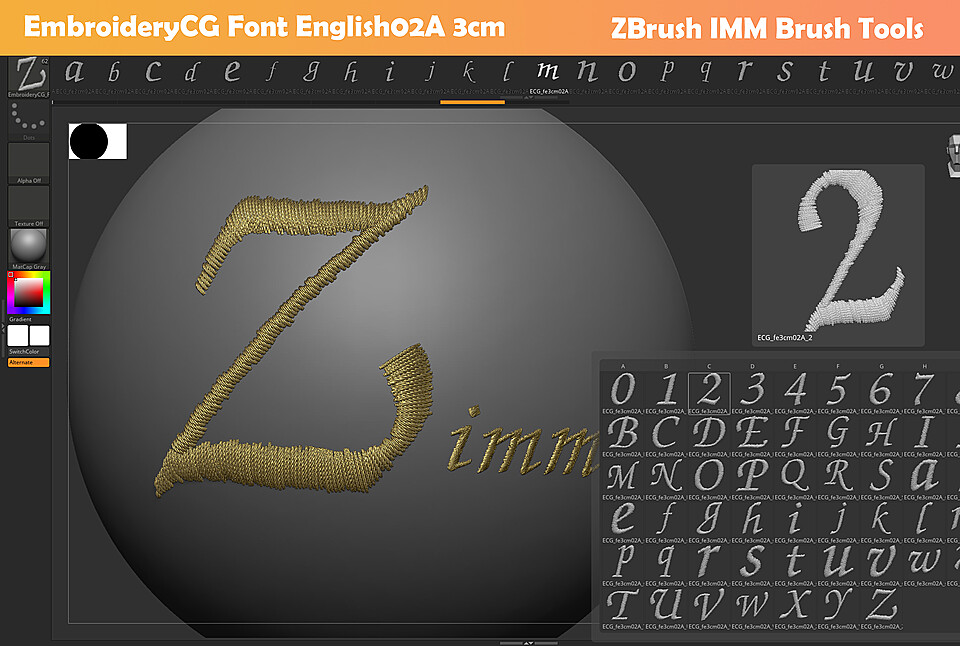
EmbroideryCG Font English02A size 3cm ZBush IMM
EmbroideryCG Font English02A Zbrush IMM Brush
- size:3cm
- 26 english upper case model
- 26 english lower case model
- 10 arabic number model
- Reference Embroidery Stitch Making
- Easily make embroidered word effects on clothes to save production time